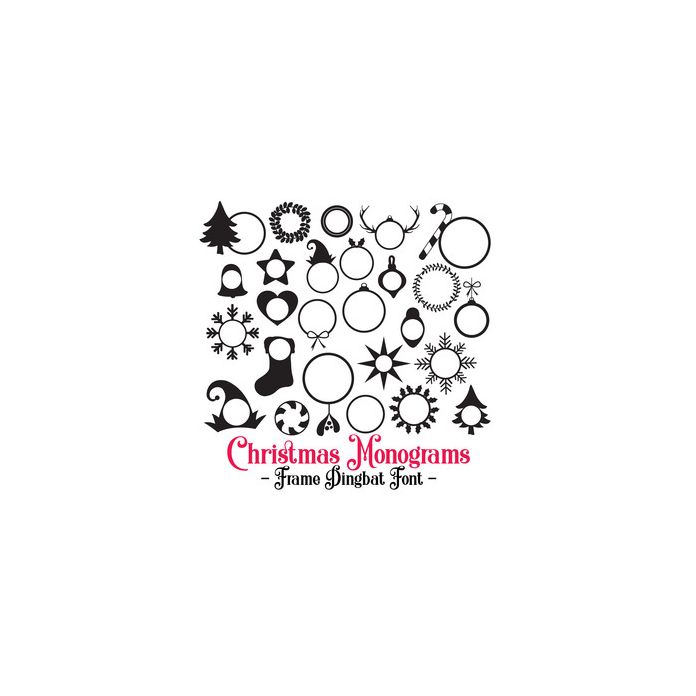
Christmas Monogram Frame Dingbat Font. Includes 26 beautiful Christmas monogram frames, perfect for holiday projects, planners, wall art, word art, vinyl, scrapbooking, gifts and more!. All are assigned to an upper case and lower case letter starting with 'A' or can be accessed via glyphs. For more design ideas, coordinating designs & products and inspiration, please visit my blog http://www.sarahhurleyblog.com